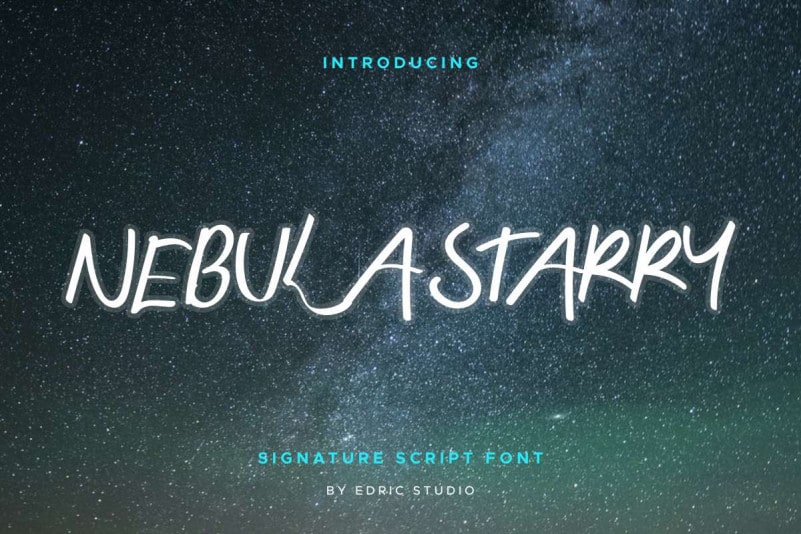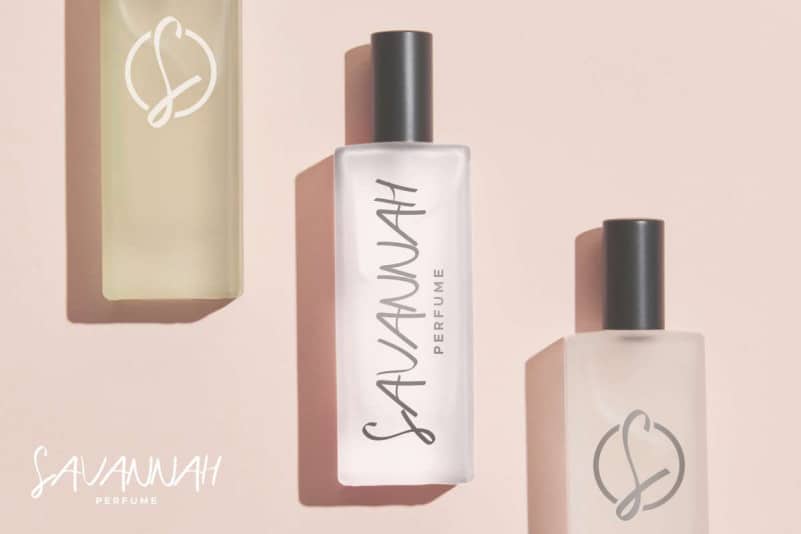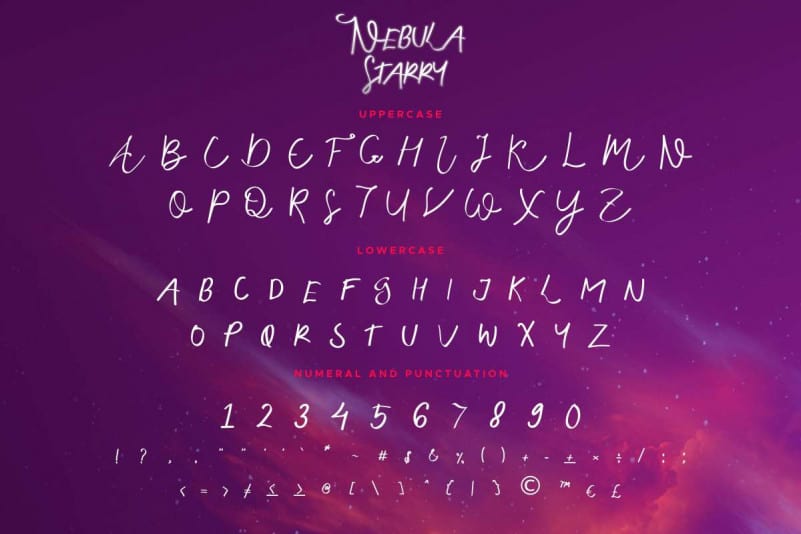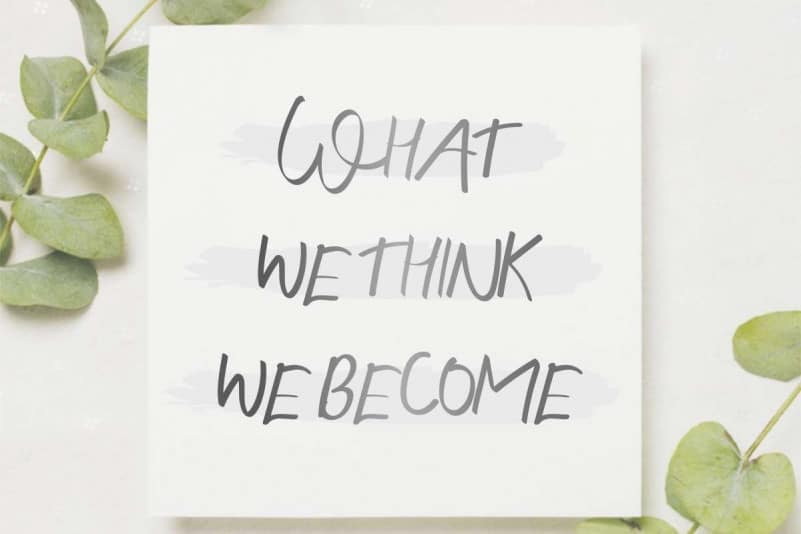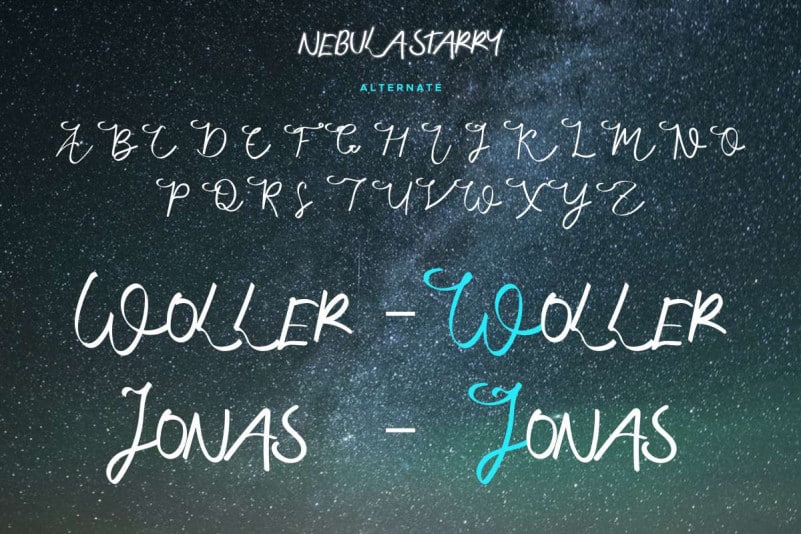
Nebula Starry Script Font
Nebula Starry Script Font is an exclusive handwriting script typeface with light simple brush style. This font has a stunning characters set, perfectly managed with well spaced and kerning. The theme style of this font will natural, bare hand, naked, vintage, feminine and classic brush script style.